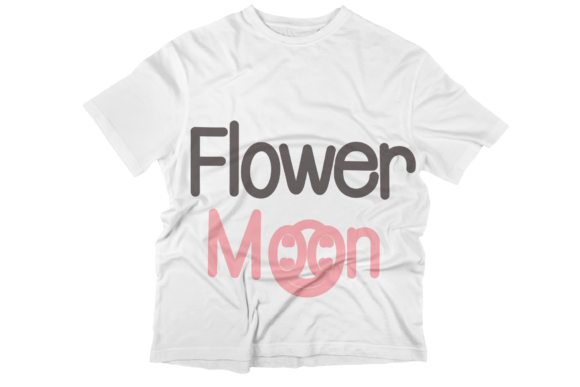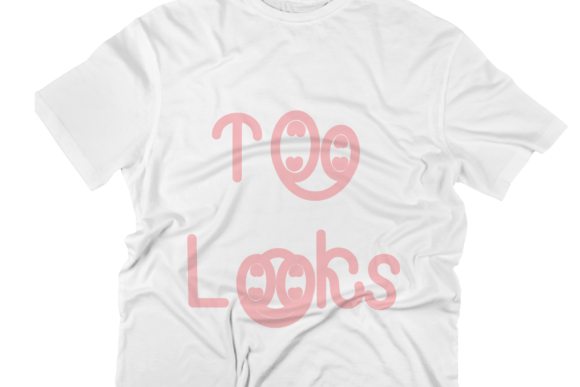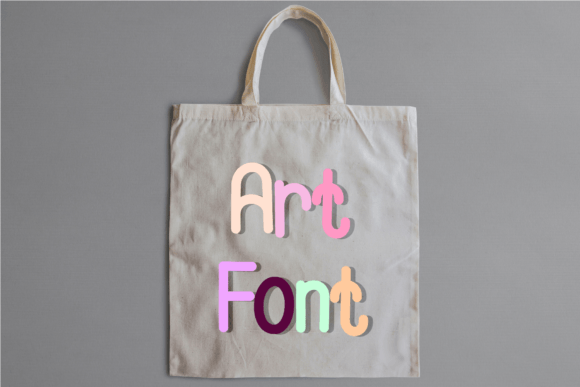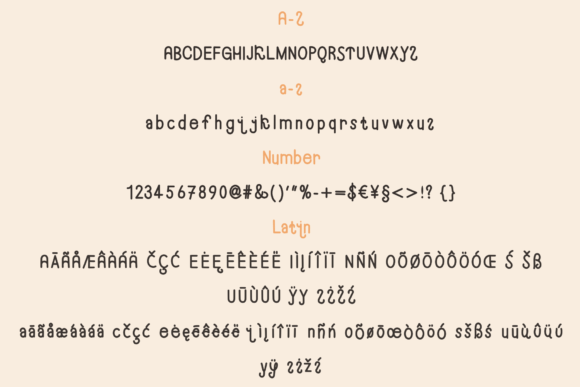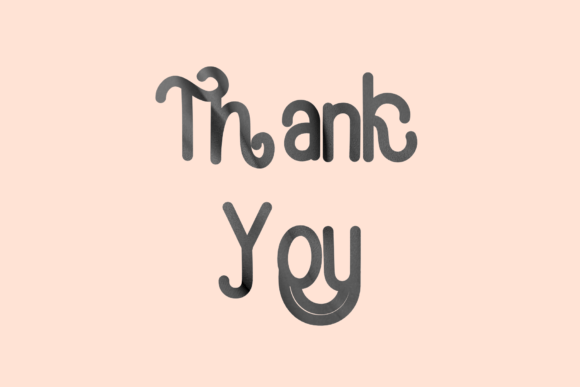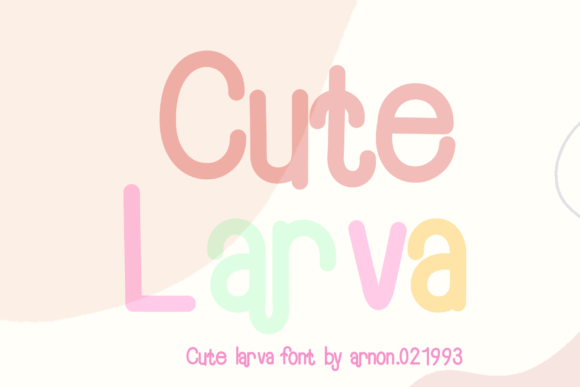
Cute Larva Font: The Ultimate Display Font for Friendly Designs
Are you tired of using the same old fonts for your designs? Look no further! Cute Larva is a delightful, childish font that’s perfect for adding a touch of friendliness to your crafts, digital designs, presentations, and greeting cards. In this article, we’ll dive into the world of Cute Larva and explore its features, benefits, and uses.
What is Cute Larva Font?
Cute Larva is a display font designed to convey impeccable friendliness. Its childish and playful appearance makes it an ideal choice for designers and crafters who want to add a personal touch to their work. The font’s clean and easy-to-read design ensures that it can be used for a wide range of applications, from digital designs to physical crafts.
Key Features of Cute Larva Font
- Childish and Playful Design: Cute Larva’s design is inspired by the innocence and playfulness of childhood, making it perfect for projects that require a friendly and approachable tone.
- Easy-to-Read: The font’s clean and simple design ensures that it’s easy to read, even at smaller sizes.
- Versatile: Cute Larva can be used for a wide range of applications, including crafts, digital designs, presentations, and greeting cards.
- Impeccable Friendliness: The font’s friendly and approachable design makes it perfect for projects that require a personal touch.
Benefits of Using Cute Larva Font
So, why should you choose Cute Larva for your designs? Here are just a few benefits of using this delightful font:
- Adds a Personal Touch: Cute Larva’s playful design adds a personal touch to your projects, making them more relatable and engaging.
- Perfect for Kids’ Projects: The font’s childish design makes it perfect for projects aimed at kids, such as children’s books, nursery decor, and kids’ party invitations.
- Great for Crafters: Cute Larva is a great choice for crafters who want to add a personal touch to their handmade projects, such as scrapbooking, card making, and DIY decor.
- Easy to Pair with Other Fonts: The font’s clean design makes it easy to pair with other fonts, allowing you to create unique and interesting typography combinations.
Uses of Cute Larva Font
Cute Larva is a versatile font that can be used for a wide range of applications. Here are just a few ideas to get you started:
- Crafts: Use Cute Larva for handmade crafts, such as scrapbooking, card making, and DIY decor.
- Digital Designs: The font is perfect for digital designs, such as social media graphics, blog posts, and email newsletters.
- Presentations: Cute Larva can add a touch of friendliness to your presentations, making them more engaging and relatable.
- Greeting Cards: The font is perfect for creating personalized greeting cards for special occasions, such as birthdays, holidays, and weddings.
Tips for Using Cute Larva Font
Here are a few tips for getting the most out of Cute Larva:
- Use it for Headings: Cute Larva is perfect for headings and titles, where its playful design can really shine.
- Pair it with Other Fonts: Experiment with pairing Cute Larva with other fonts to create unique and interesting typography combinations.
- Experiment with Colors: The font’s clean design makes it easy to use with a wide range of colors and patterns.
Cute Larva is a delightful display font that’s perfect for adding a touch of friendliness to your designs. Its childish and playful design makes it an ideal choice for designers and crafters who want to create engaging and relatable projects. Whether you’re using it for crafts, digital designs, presentations, or greeting cards, Cute Larva has the potential to become your favorite go-to font. So why not give it a try and see the difference it can make in your designs?